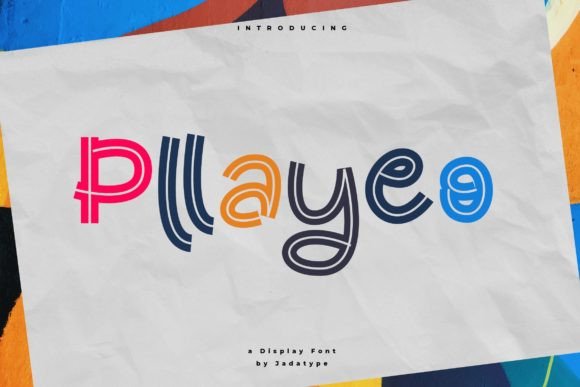
Step into a whimsical world where creativity reigns supreme with Pllayeo Font, a display font that awakens your imagination and transforms your designs into extraordinary creations.
Pllayeo's distinct style is a vibrant symphony of childlike wonder and playful elegance. Each character dances across the page, exuding a cheerful exuberance that will captivate your audience. Let your designs blossom with the boundless energy of Pllayeo, crafting logos, branding elements, and digital masterpieces that spark joy and ignite endless possibilities.
With its incredibly versatile nature, Pllayeo adapts effortlessly to any canvas you envision. Unleash your creativity and explore a kaleidoscope of design possibilities, from enchanting children's books to whimsical invitations and playful social media campaigns. Pllayeo's versatility empowers you to weave tales of enchantment, leaving an unforgettable mark on all who behold your creations.
Embrace the magic of Pllayeo and watch your designs soar to new heights. Its childlike charm and playful spirit will evoke smiles, inspire dreams, and ignite the imagination of everyone who encounters it. Let Pllayeo be your companion on this extraordinary journey, where every creation becomes a timeless masterpiece.